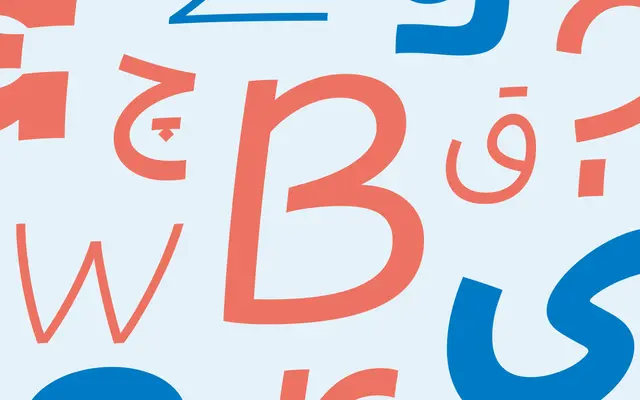
Bisbee
Dalton Maag · Emanuela Conidi · 2022
Bisbee specimen from Dalton Maag
A casual handwritten script with a Weight axis from Hairline to Black across Latin and Arabic.
Dalton Maag's Bisbee is a casual handwritten script by Emanuela Conidi, designed and developed 2022 to 2024. The variable font carries a Weight axis from Hairline to Black across Latin and Arabic, with OpenType features including swash capitals, alternate J and j, and Arabic swashes. Coverage supports over 810 languages.
Dalton Maag describes Bisbee as a swift and casual handwritten script typeface that is also highly legible and readable, with an extensive Weight axis across both Latin and Arabic.